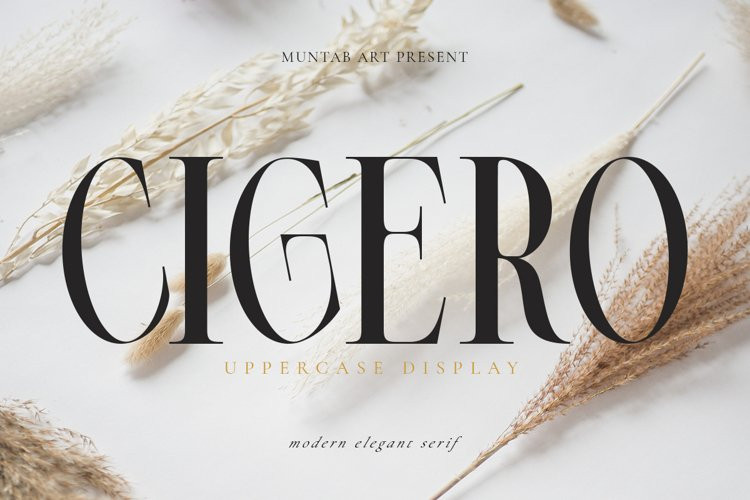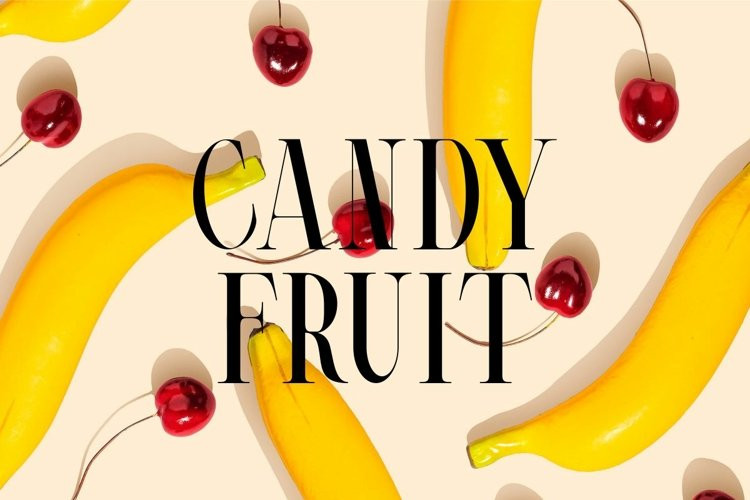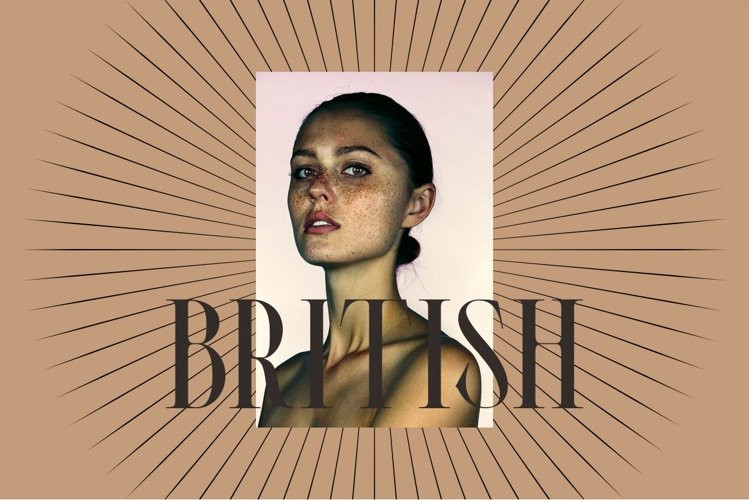
Cigero Font
Cigero FontCigero fonts includes lowercase, numerals, a large range of punctuation. Serif font with modern style. Created for poster, web design, branding, illustrations, badges and some other works.